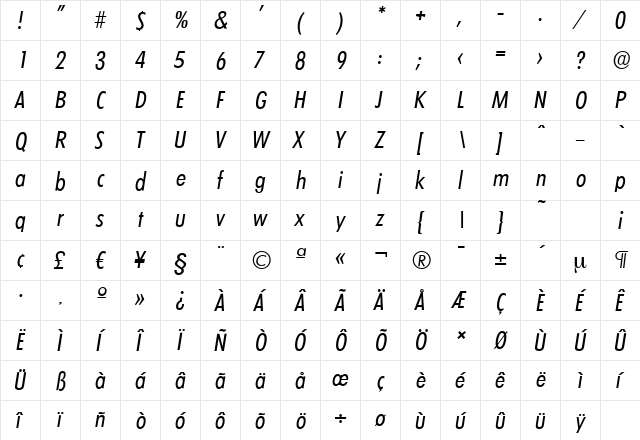
LimerickCdSerial Italic
Design Context for LimerickCdSerial Typeface
LimerickCdSerial offers clean, dependable letterforms without strong stylistic allegiance, making it a practical choice for designers who need flexibility. Its italic angle brings a sense of urgency and motion to the letterforms.
Pro Tip: Try LimerickCdSerial for annotation and caption copy alongside an upright companion — the contrast in angle creates a dynamic but ordered typographic system.